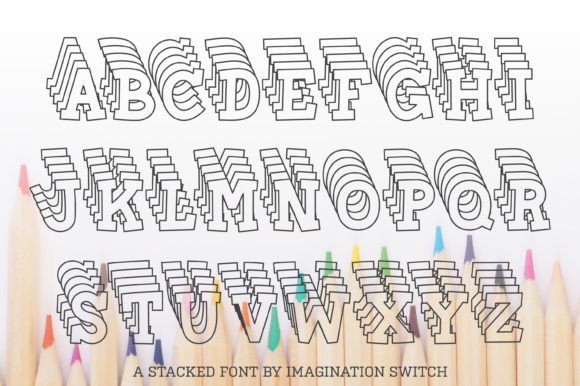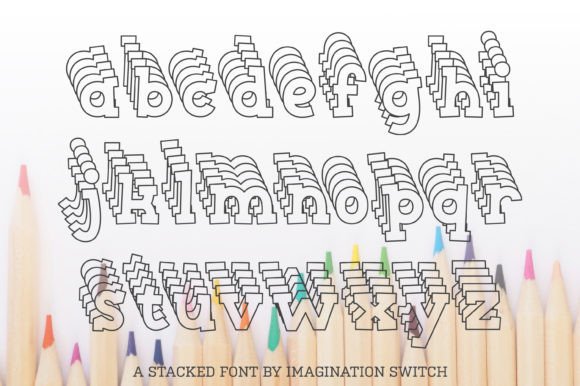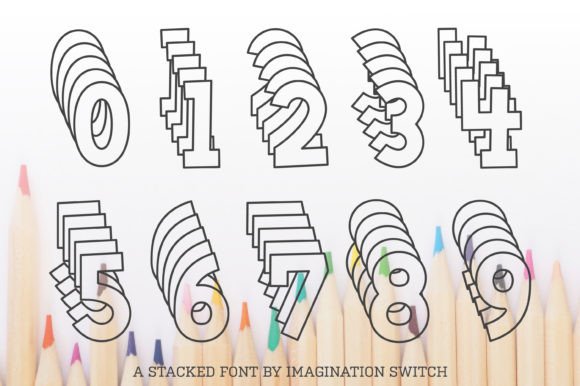
Introducing Colorful Font: Elevate Your Designs with Elegance and Depth
In the world of typography, a well-crafted font can make all the difference in elevating your design from ordinary to extraordinary. If you’re a designer, crafter, or simply someone who appreciates the art of beautiful lettering, you’re in for a treat. Meet Colorful Font, a stunning display stacked font that adds a touch of sophistication and visual interest to any project.
The Elegance of Stacked Typography
Colorful Font boasts an elegant stacked style, where each letter appears dimensional and captivating. This unique design approach creates a sense of depth, making your text stand out in a crowd. Whether you’re working on a logo, branding materials, or a creative project, this font is sure to leave a lasting impression.
One of the most significant advantages of Colorful Font is its versatility. This font is suitable for various purposes and moods, making it an excellent addition to your design toolkit. From:
- Playful and whimsical designs: Use Colorful Font to add a touch of fun and personality to your project.
- Elegant and sophisticated branding: Leverage the font’s stacked style to create a luxurious and high-end feel.
- Creative and artistic expressions: Experiment with Colorful Font to add visual interest and depth to your artwork.
What Makes Colorful Font Special?
So, what sets Colorful Font apart from other fonts in its class? Here are a few key features:
- Unique stacked design: Each letter is carefully crafted to create a sense of depth and dimensionality.
- Elegant and sophisticated feel: Perfect for designs that require a touch of luxury and refinement.
- Highly versatile: Suitable for a wide range of projects, from playful to elegant.
Tips for Using Colorful Font Effectively
To get the most out of Colorful Font, here are a few tips to keep in mind:
- Experiment with colors: Take advantage of the font’s stacked design by experimenting with different color combinations.
- Play with typography: Mix and match different font sizes, styles, and arrangements to create visual interest.
- Balance is key: Make sure to balance your text with negative space to avoid overwhelming the viewer.
In conclusion, Colorful Font is a stunning display stacked font that can elevate your designs to new heights. With its elegant stacked style, versatility, and unique features, this font is sure to become a favorite among designers and crafters. Whether you’re working on a creative project or a branding initiative, Colorful Font is an excellent choice for adding depth, sophistication, and visual interest.